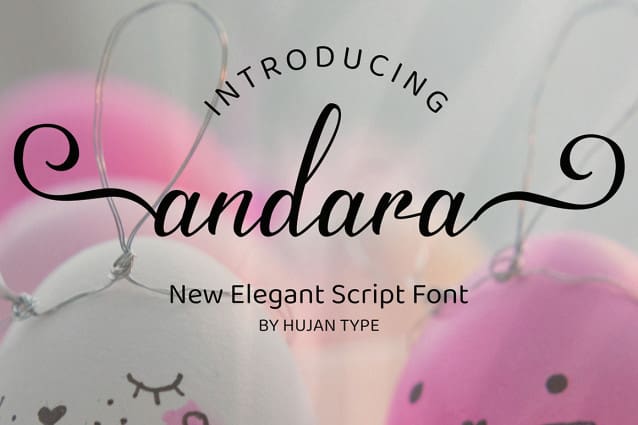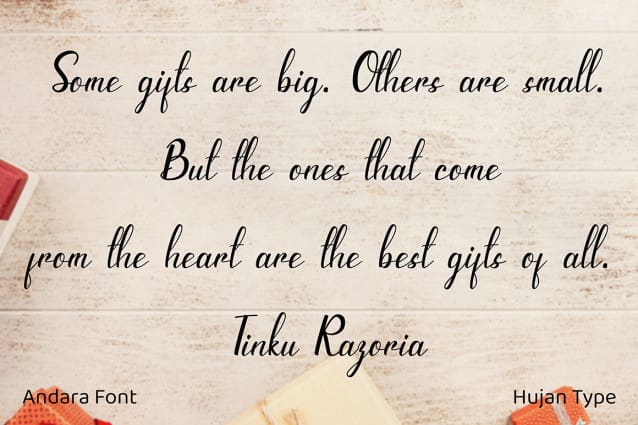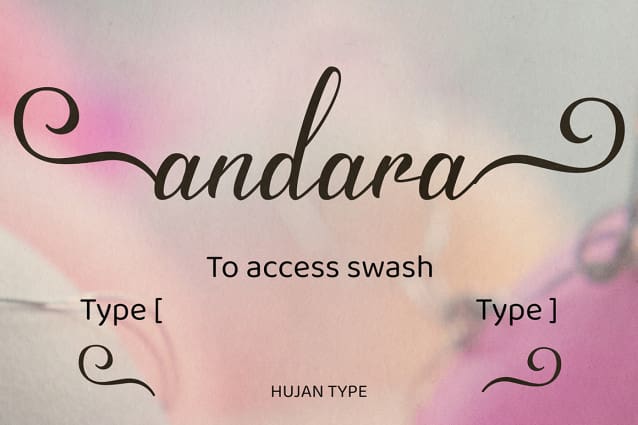
Andara Script Font
Andara Script Font is a elegant handwritten font perfect for your favorite projects. Fall in love with its incredibly distinct and timeless style, and use it to create spectacular designs!